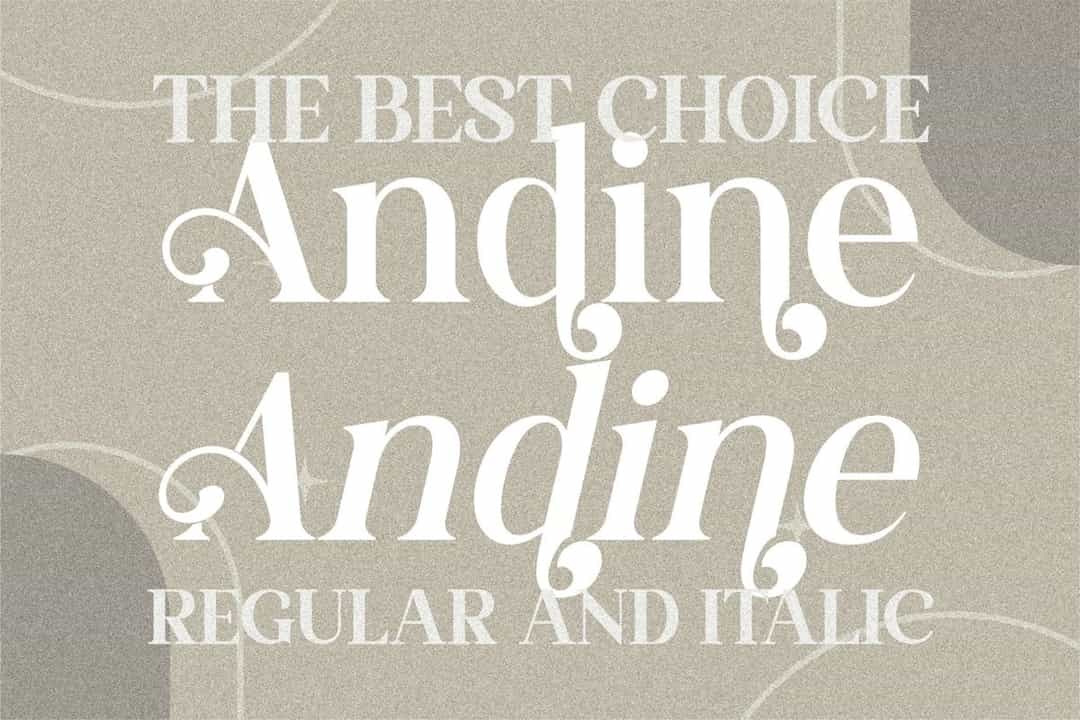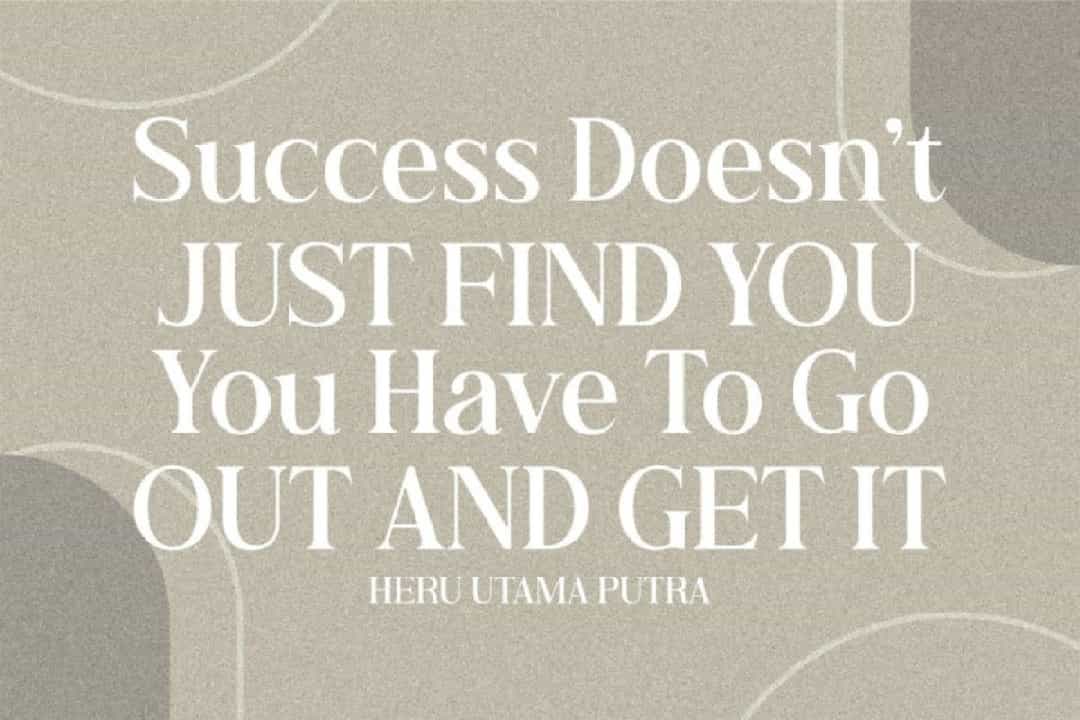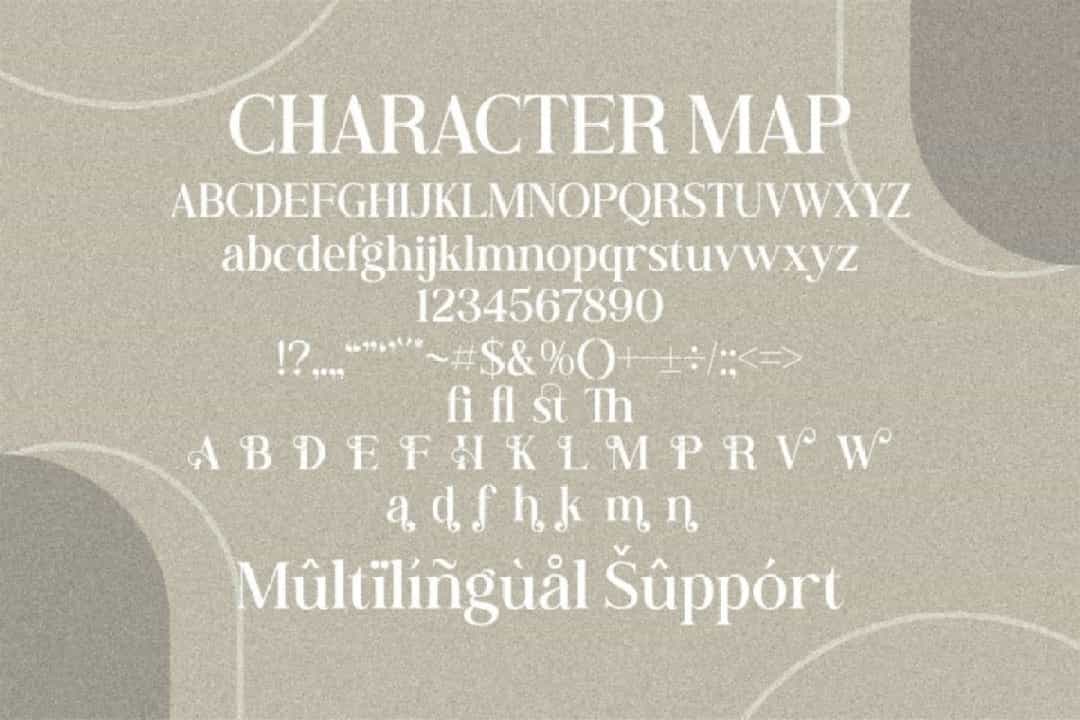
Andine is an elegant serif style luxury font that would be suitable to be used in logo design and branding for home products and packaging design. The shopping bags with quotes can also use Andine in the mugs.